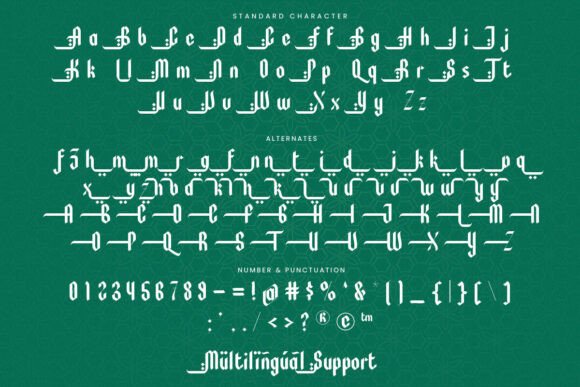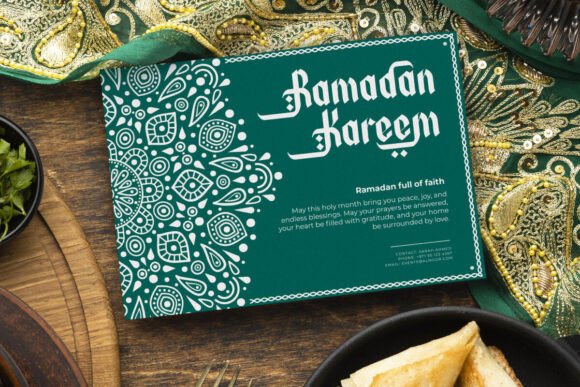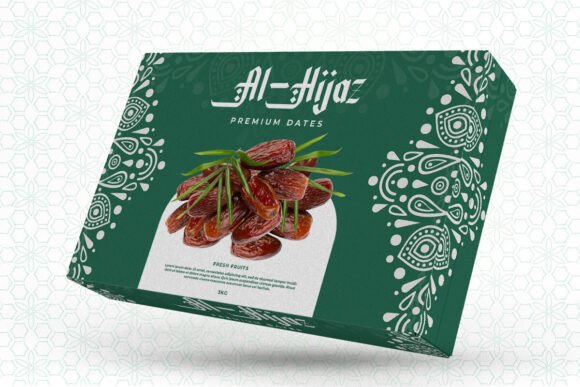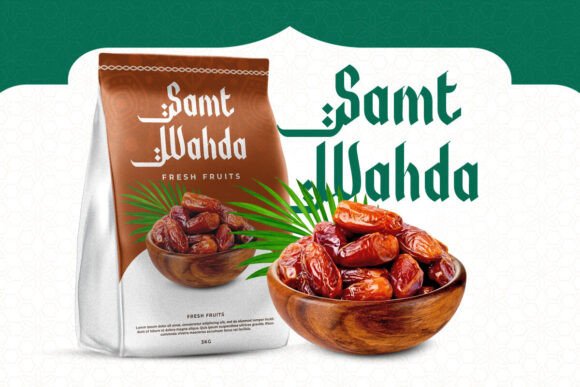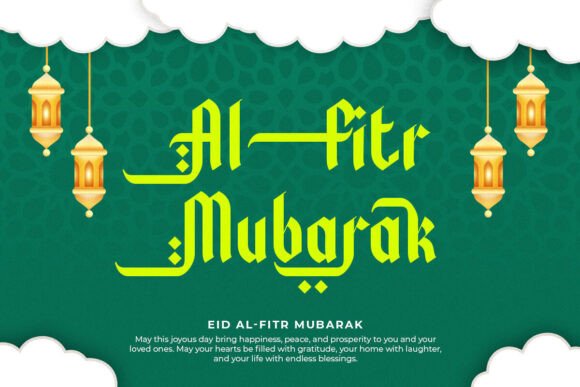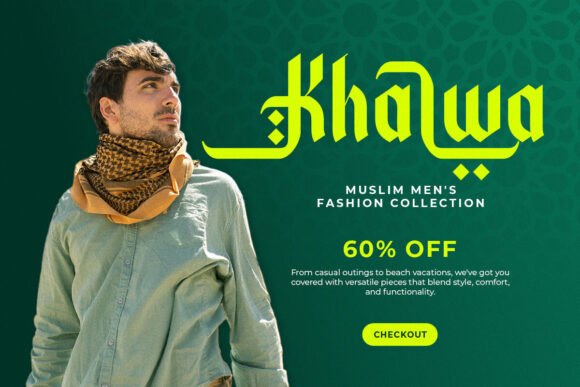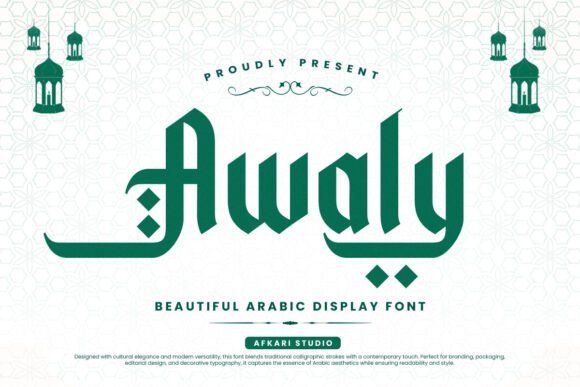
The Perfect Blend of Tradition and Modernity: Awaly Font
Have you ever been captivated by the intricate beauty of Arabic calligraphy, watching the strokes flow effortlessly across the page? For designers, there’s nothing quite like the thrill of bringing a unique aesthetic to life. For me, it’s moments like these that remind me of the power of typography to transport us to another world.
Enter the Awaly Font, a stunning Arabic-style typeface that embodies the fluidity and elegance of traditional calligraphy. Designed to add a touch of sophistication to any project, this versatile font is perfect for branding, packaging, and more. Whether you’re creating designs for Islamic events, halal products, or cultural festivals, the Awaly Font ensures an authentic Middle Eastern aesthetic that’s sure to leave a lasting impression.
Awaly Font Key Features
• Font Family: Awaly Font is a unique, elegant, and modern script font.
• Character Set: Includes a wide range of characters, including uppercase and lowercase letters, numbers, and punctuation marks, making it suitable for various languages.
• Unique Characteristics: Features a distinctive, flowing design with subtle flourishes, giving it a sophisticated and luxurious feel, perfect for branding, invitations, and other high-end designs.
Designer Review: Awaly Font
Overall, I’m impressed with the Awaly Font. It’s a beautiful, elegant script font that’s perfect for creating a sophisticated and high-end look. ✨ The fluid connections between the letters make it a joy to read, and the subtle flair at the end of each letter adds a touch of whimsy. ✨ The font is highly legible, even at small sizes, making it a great choice for body text as well as headings.
• ✨ Elegant and sophisticated design
• ✨ Highly legible, even at small sizes
• ✨ Perfect for creating a high-end look
• ✨ Fluid connections between letters
• ⚠️ Limited to script font style, may not be suitable for all designs
• ⚠️ Can be a bit too elegant for more casual designs
• ⚠️ Some letters may require manual spacing adjustments for optimal alignment
Overall, I’m a big fan of the Awaly Font. It’s a great choice for designers who want to add a touch of sophistication and elegance to their designs. With a little bit of creativity, it can be used in a wide range of applications, from fashion and beauty to luxury goods and more.
Getting the Most Out of Awaly Font
To get the most out of Awaly Font, use it for:
• Creative typography projects.
• Designing unique logos or branding materials.
• Adding a touch of elegance to your digital documents.
Awaly Font is commonly used for:
• Wedding invitations and stationery.
• Luxury branding materials.
• High-end digital publications.